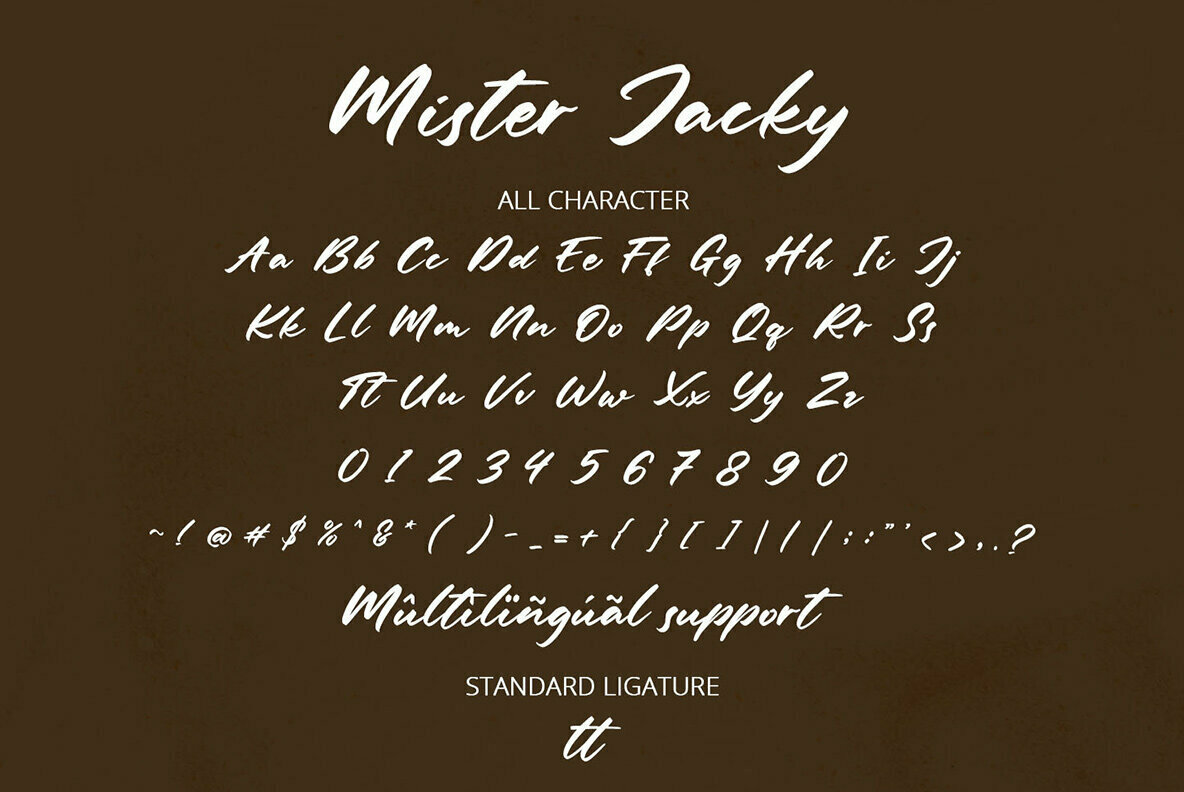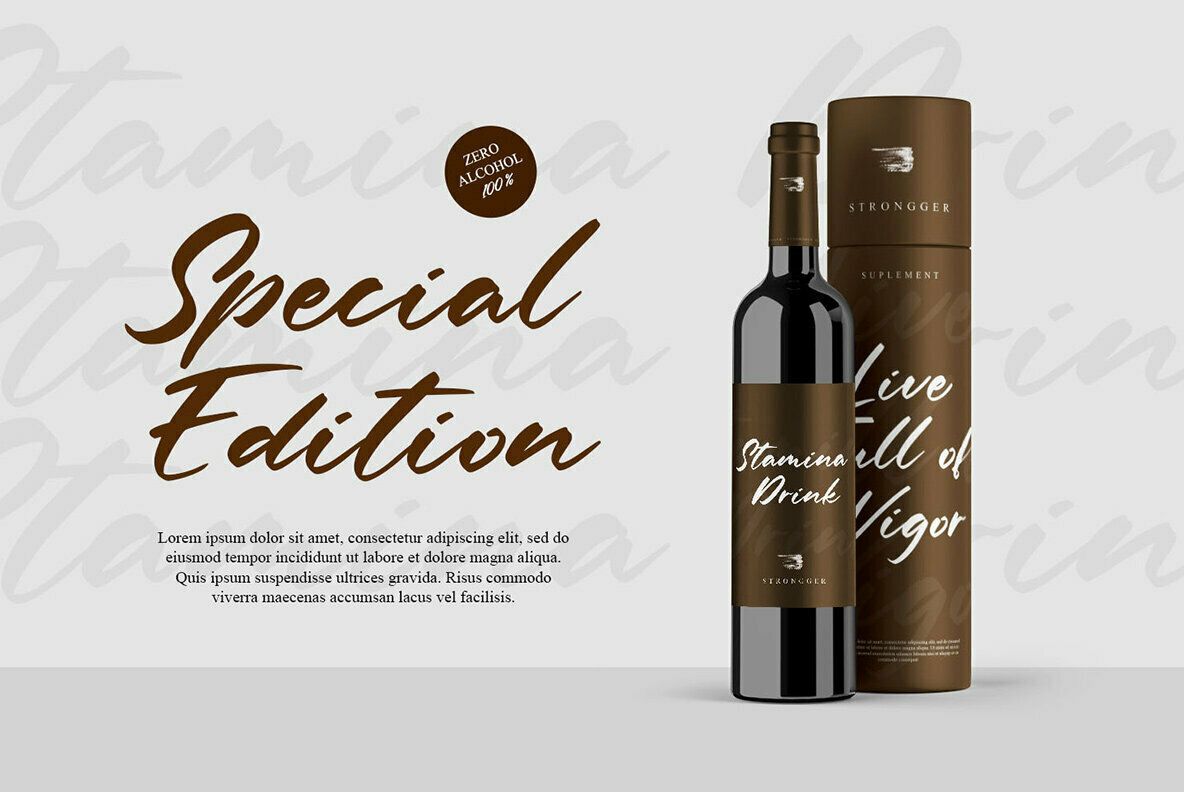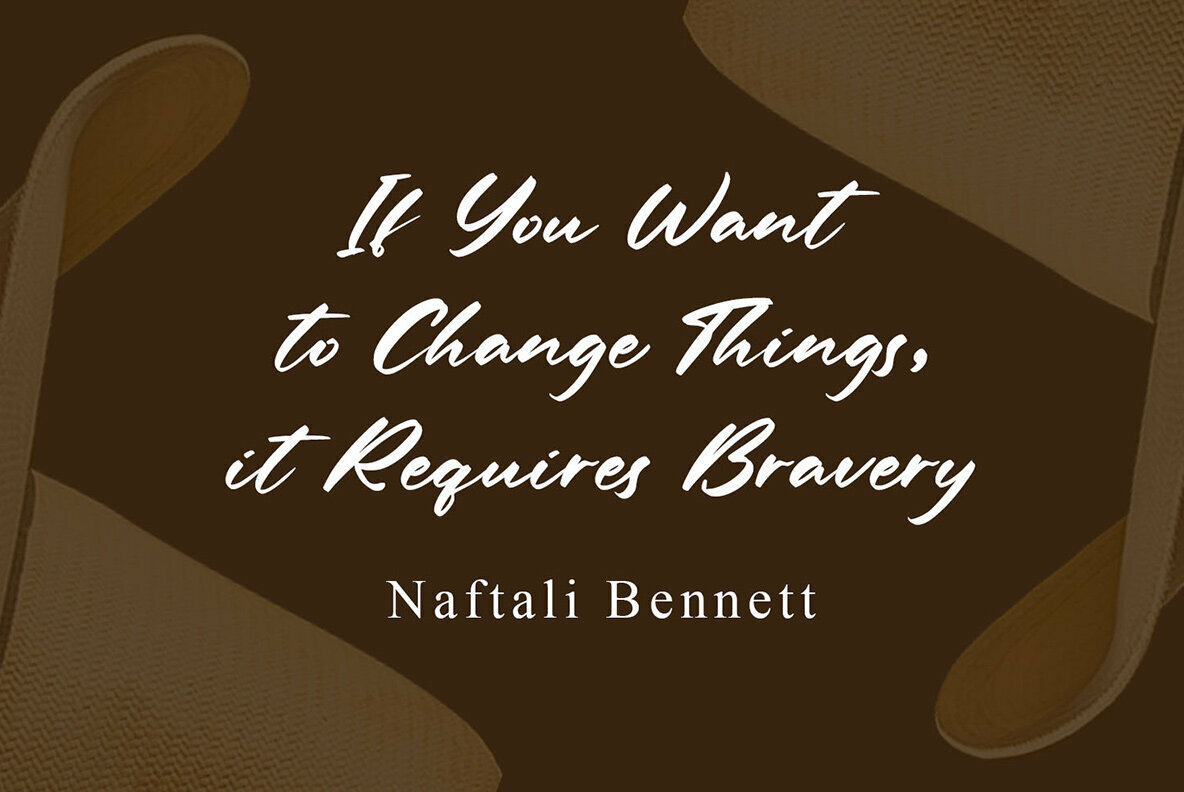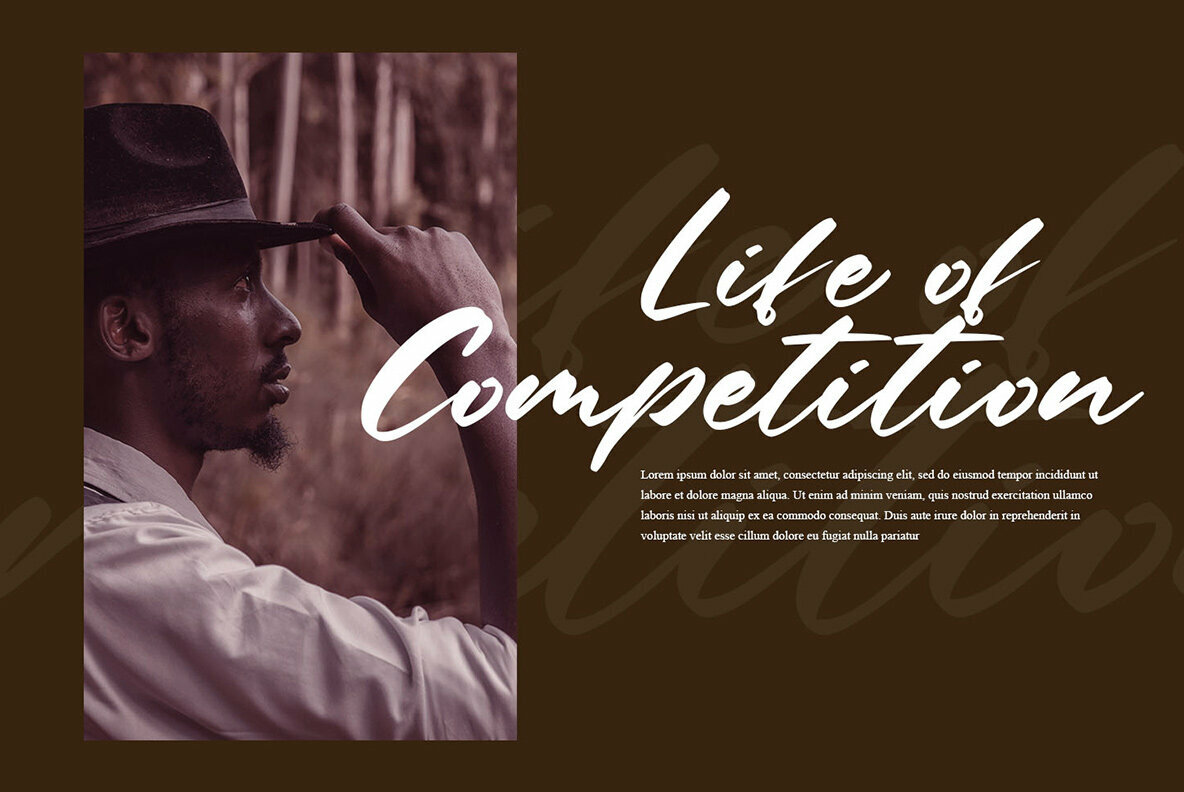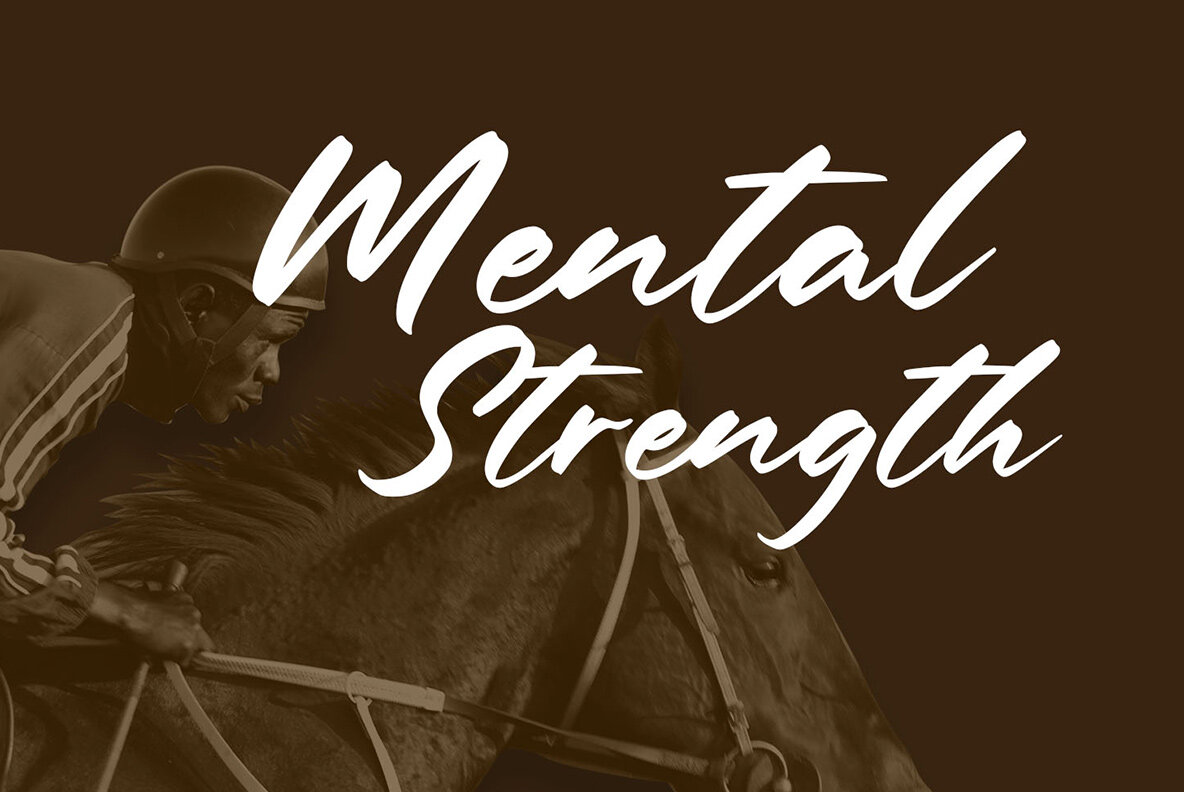
Mister Jacky Font
Mister Jacky
Mister Jacky stands out as a versatile modern handwritten font, perfect for infusing elegance into any design project. Its graceful curves and distinctive style make it ideal for diverse applications, from logos to branding elements, and even compelling quotes.Mister Jacky: A Modern Handwritten Typeface